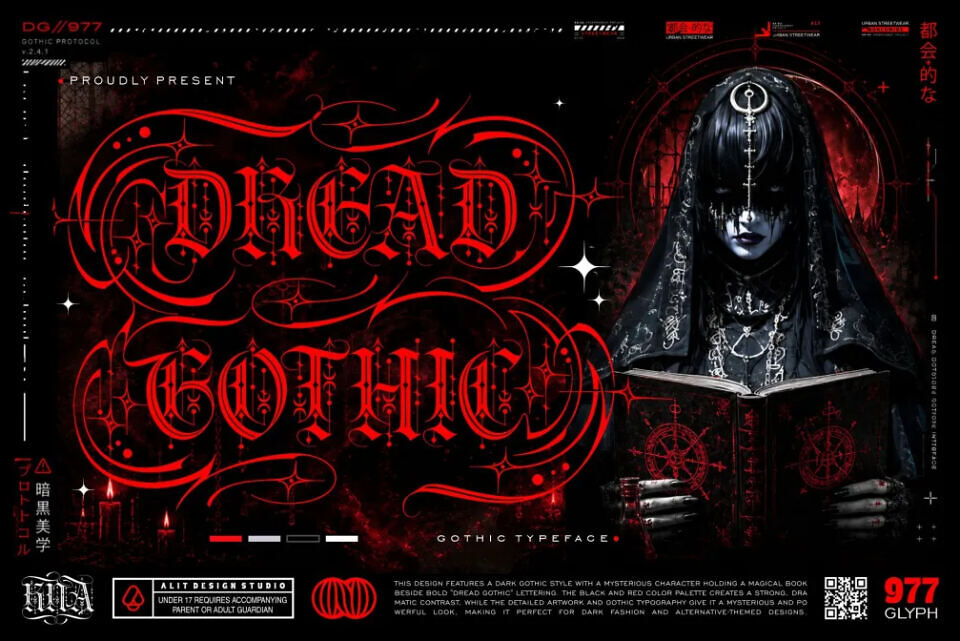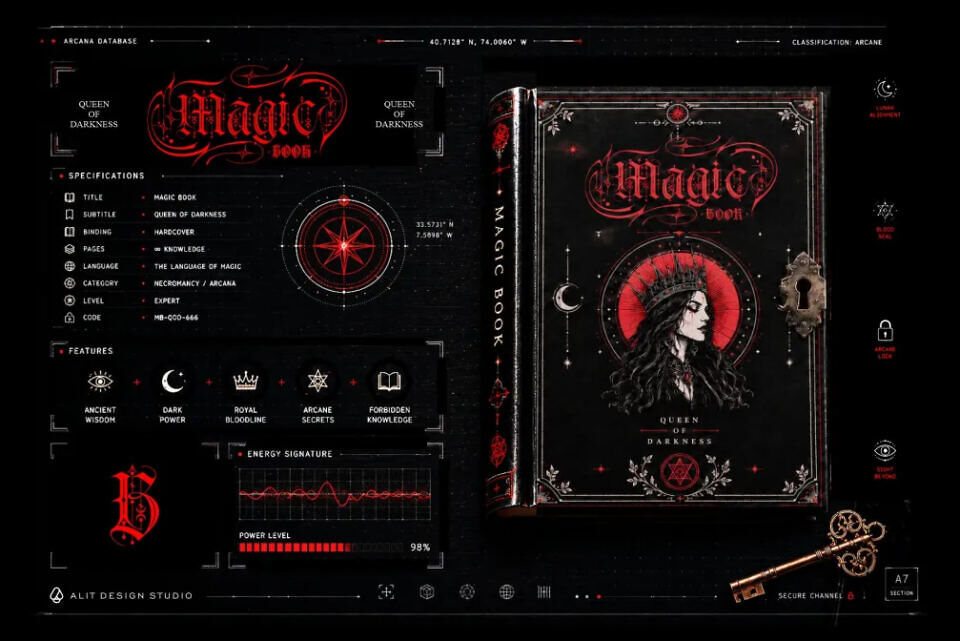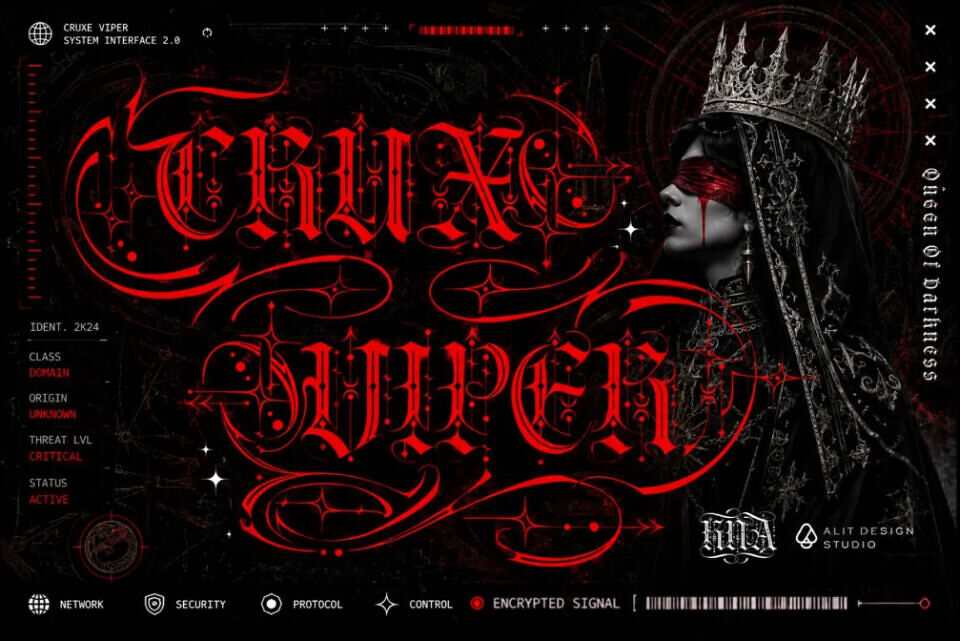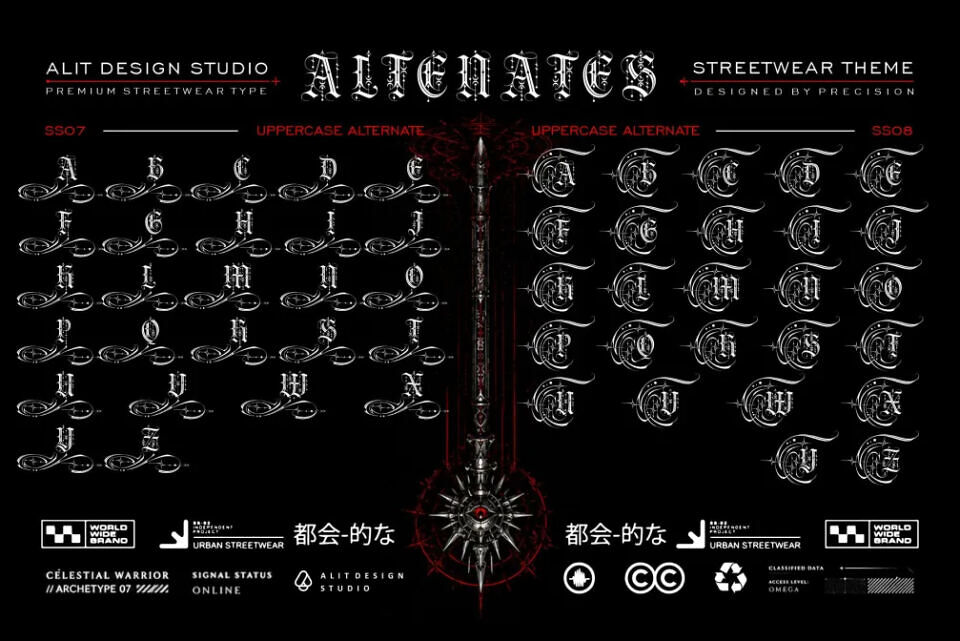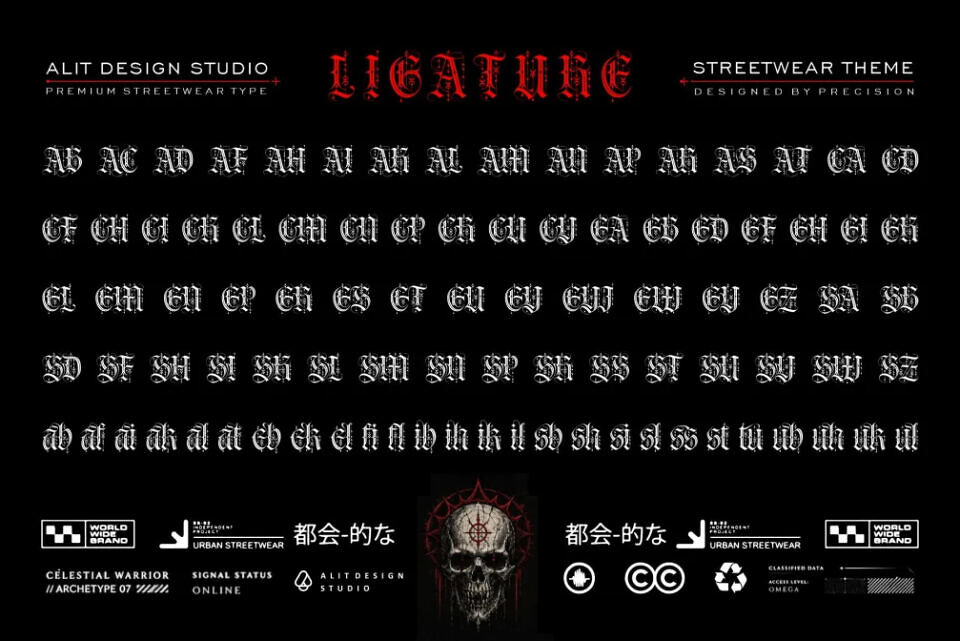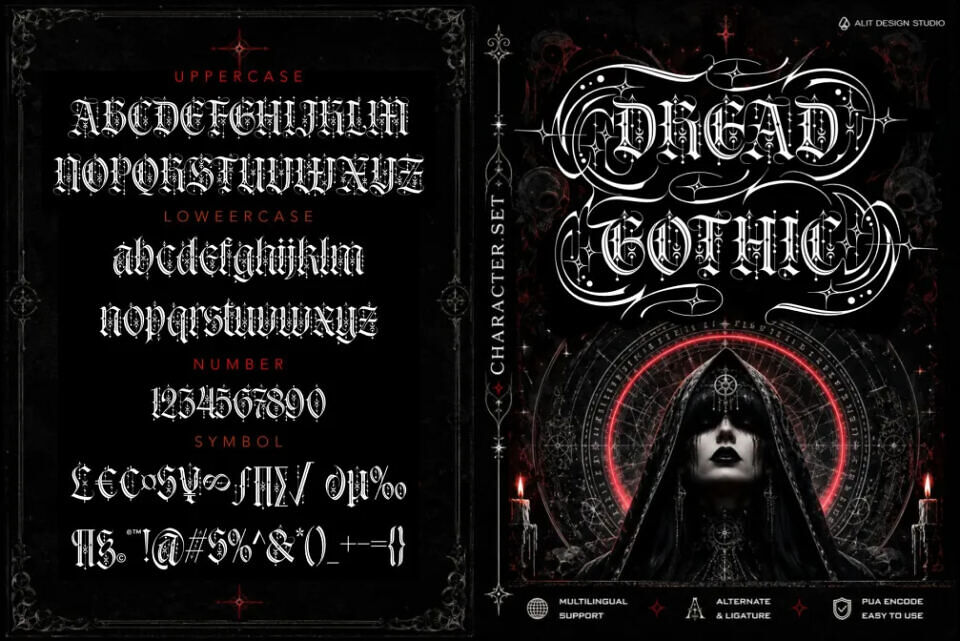
Unleash the raw power of dramatic typography with Dread Gothic, a meticulously crafted blackletter typeface that seamlessly bridges medieval structural elegance with a sharp, contemporary edge. Designed for creators who demand a striking visual presence, this font brings a commanding, rebellious, yet highly sophisticated aesthetic to any design project.
With an exceptionally rich library of 977 glyphs, Dread Gothic offers unparalleled versatility and creative freedom. It features a complete set of uppercase and lowercase letters, numerals, symbols, and robust multilingual support. Whether you are designing a modern streetwear brand, dark-themed illustrations, high-end packaging, heavy metal band merchandise, or intricate tattoo art, Dread Gothic delivers a bold, unforgettable statement.